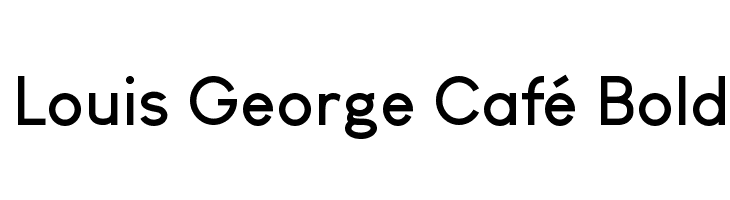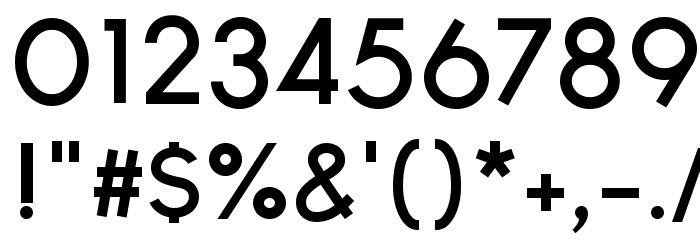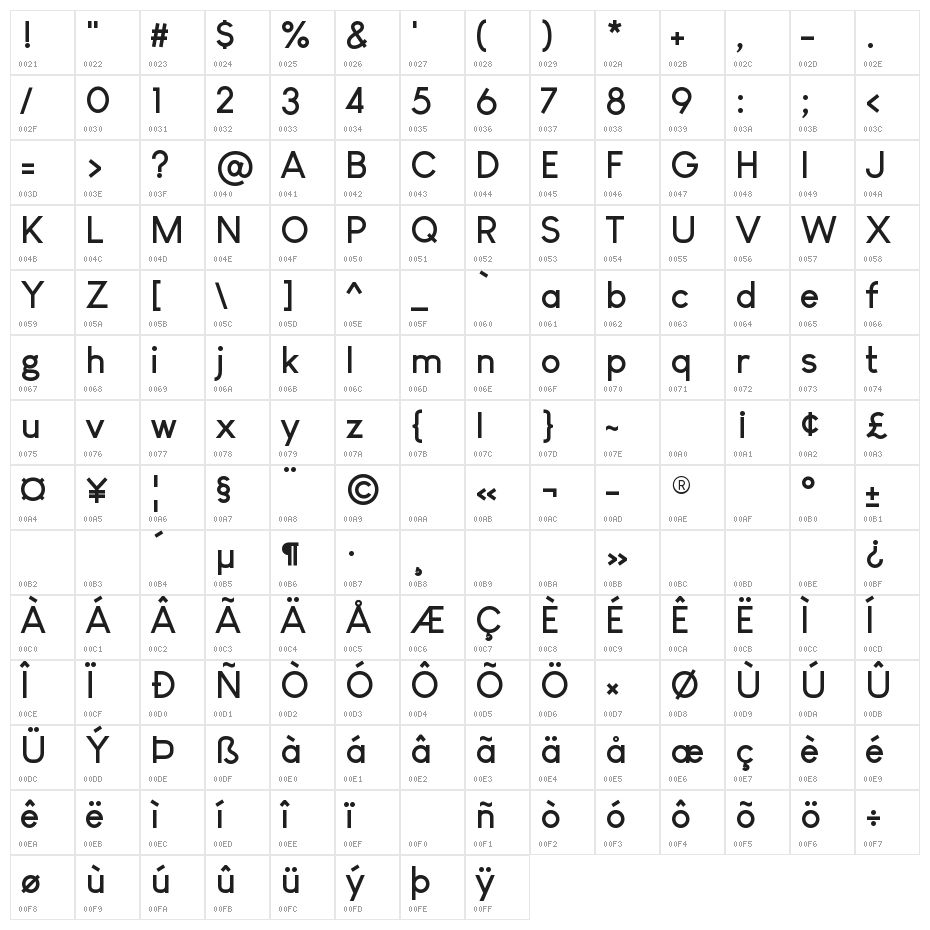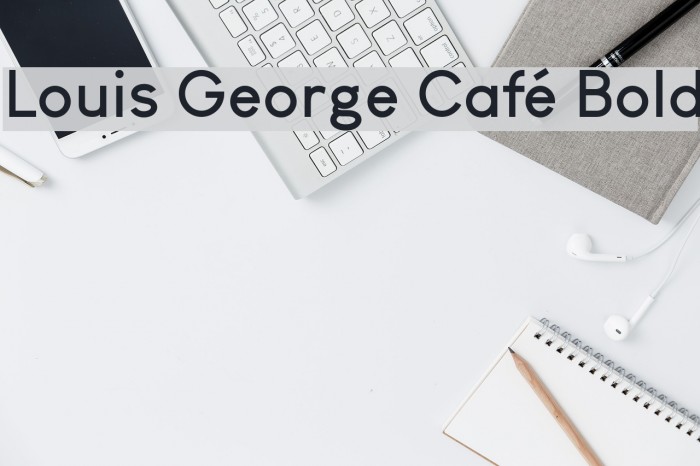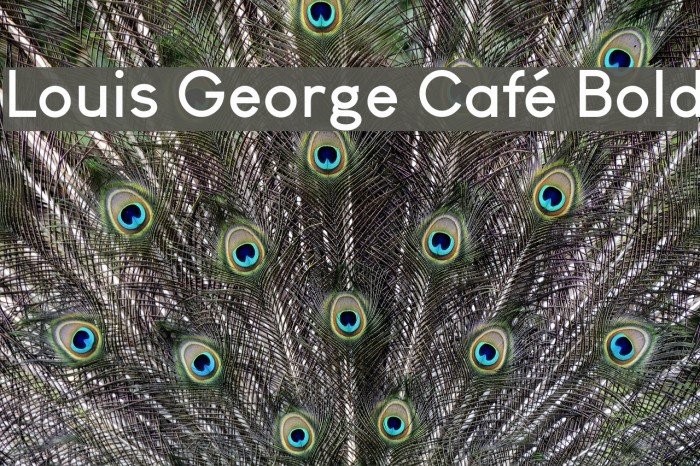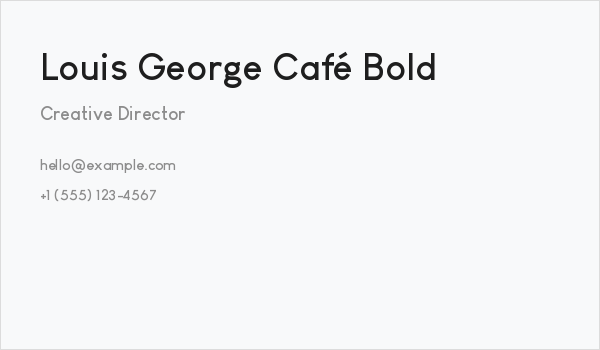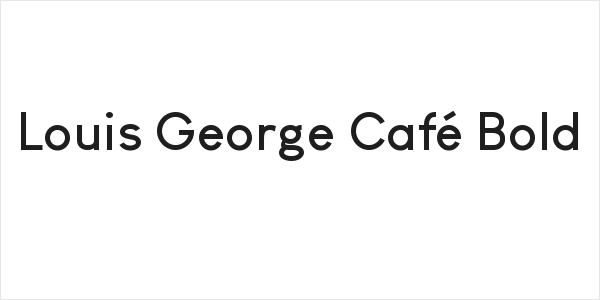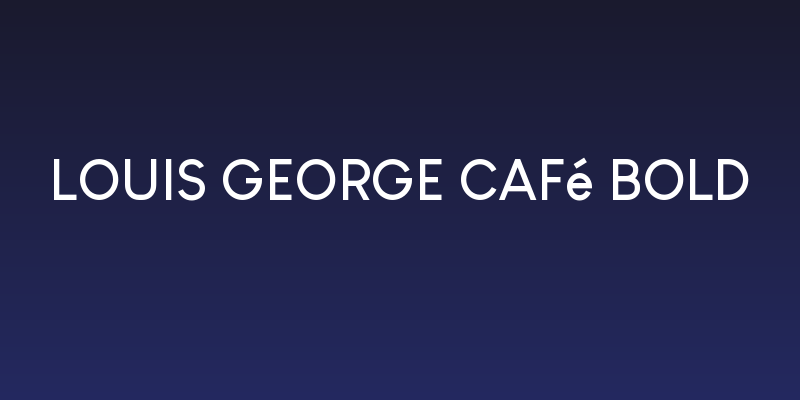
Louis George Café Bold Font
Louis George Café Bold Description
This font exhibits a clean and modern sans-serif style, characterized by its bold and uniform stroke weight. The characters are well-proportioned with a geometric influence, offering a sense of clarity and precision. The uppercase letters are tall and commanding, while the lowercase letters maintain a consistent roundness and simplicity. The numerals are straightforward and align well with the overall aesthetic, making them highly legible. Special characters are designed to complement the alphabetic characters, ensuring a cohesive appearance throughout.
| Use Case | Headlines, Logos, Digital Interfaces |
| Proposed Projects | Ideal for branding, advertising, headlines, and digital interfaces where clarity and impact are essential. |